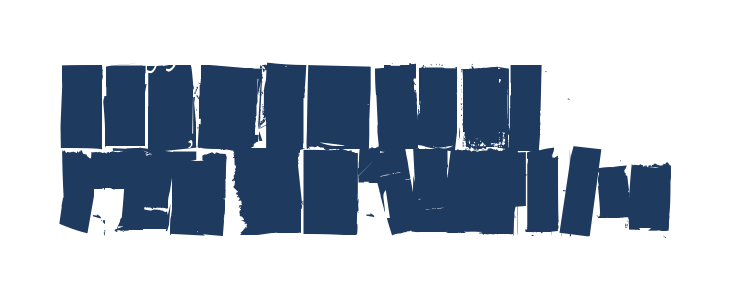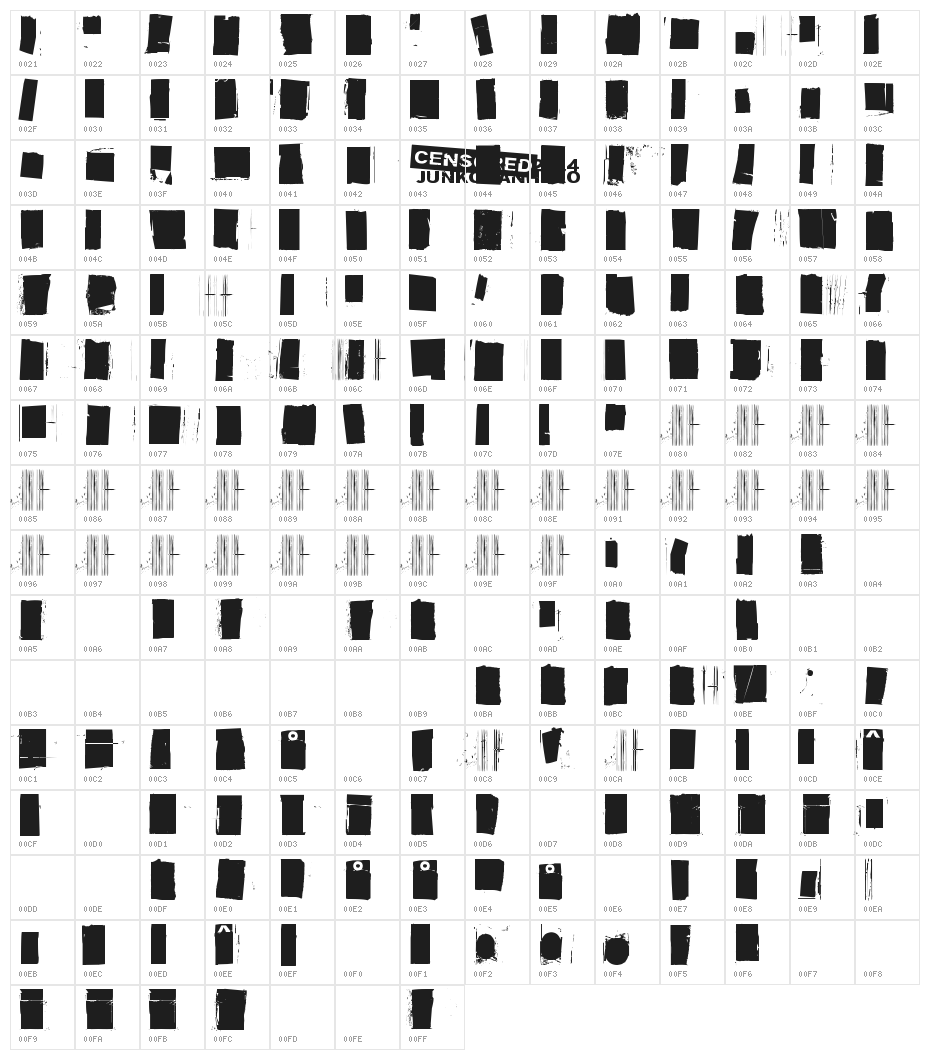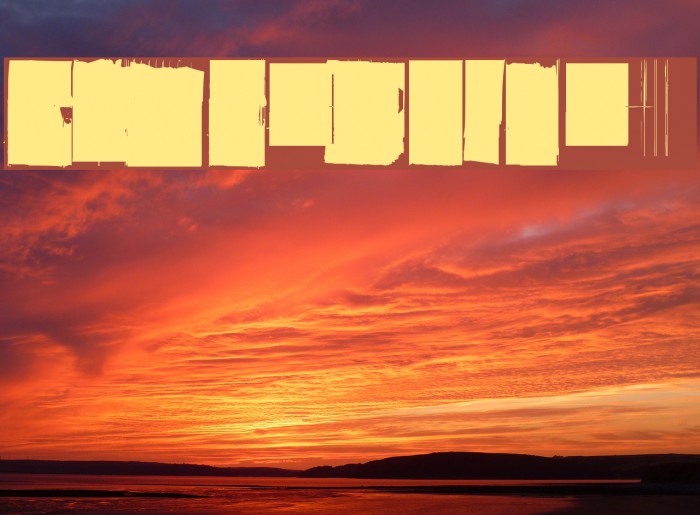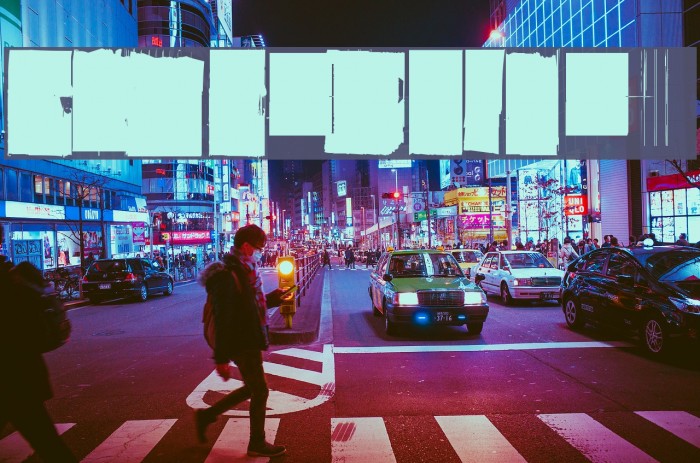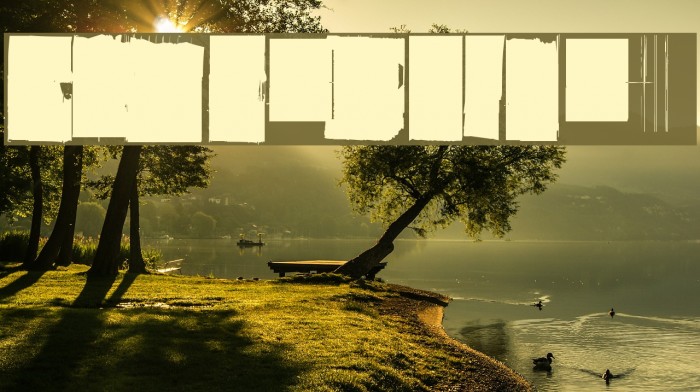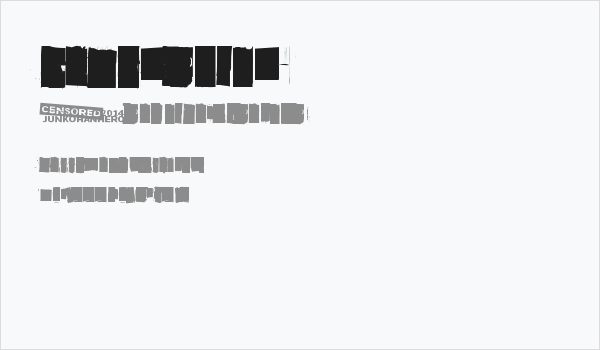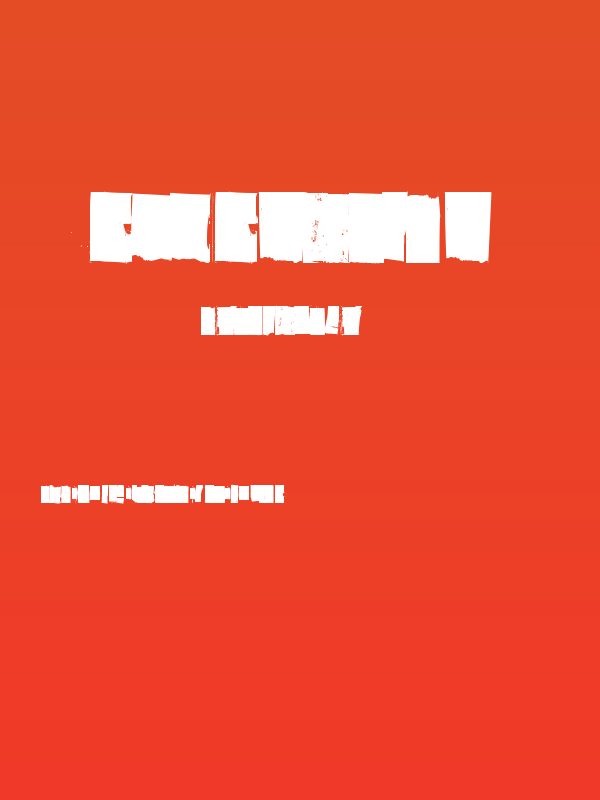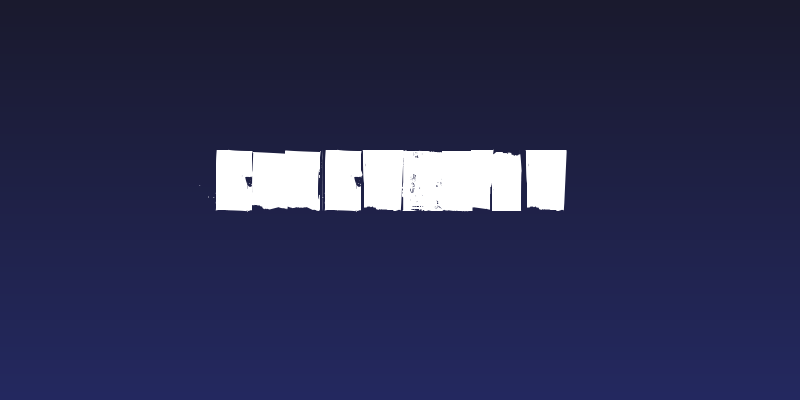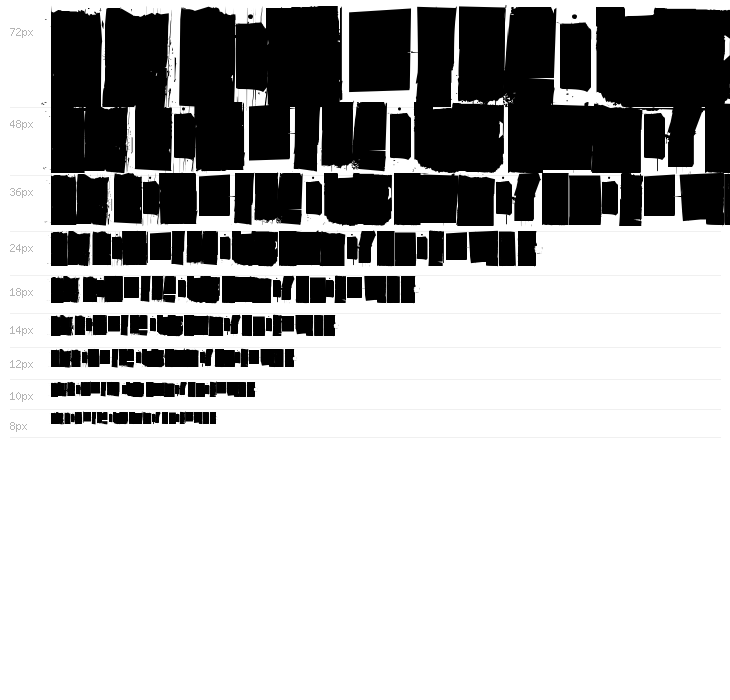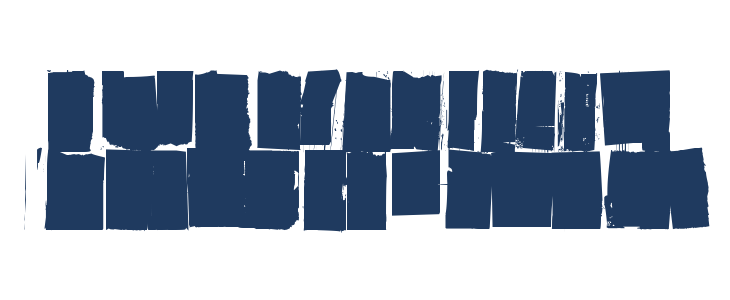
Sensuroitu Font
Sensuroitu Description
This font features a highly distressed and grungy aesthetic, with each character appearing as if it has been roughly torn or eroded. The letters are bold and blocky, with irregular edges and a heavy texture that suggests a worn or weathered look. This style gives the font a raw, edgy feel, making it stand out with its unique, almost chaotic appearance. The characters are unevenly spaced, adding to the overall rugged and unconventional design. This font is ideal for projects that require a bold statement or a rebellious, underground vibe.
| Overall Style | Grunge, Edgy |
| Proposed Projects | Ideal for album covers, street art-inspired designs, edgy posters, or any project needing a rebellious, raw aesthetic. |